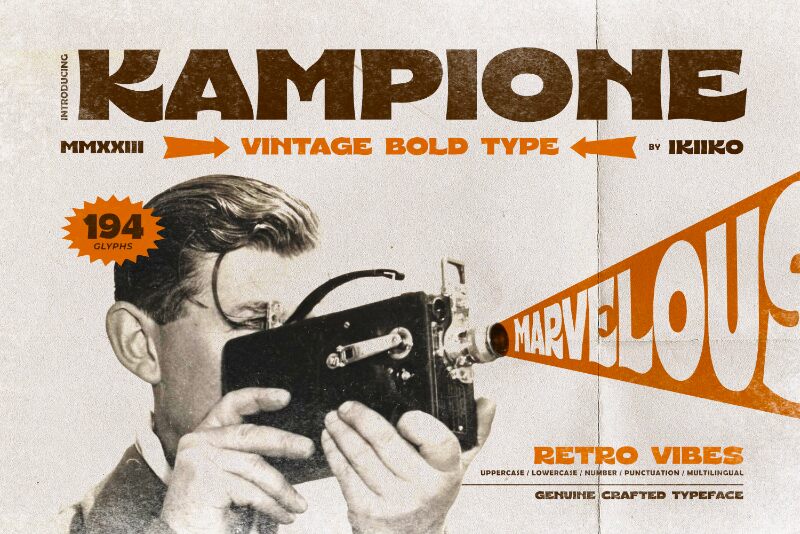
Kampione font by Ikiiko Type is a bold font with retro vibes and an expanded width. With its strong geometric presence, this display typeface brings the long past popular style into a contemporary revival to make it usable in today’s designs. A high visual impact can be obtained when working on projects where attention belongs strictly to the words.